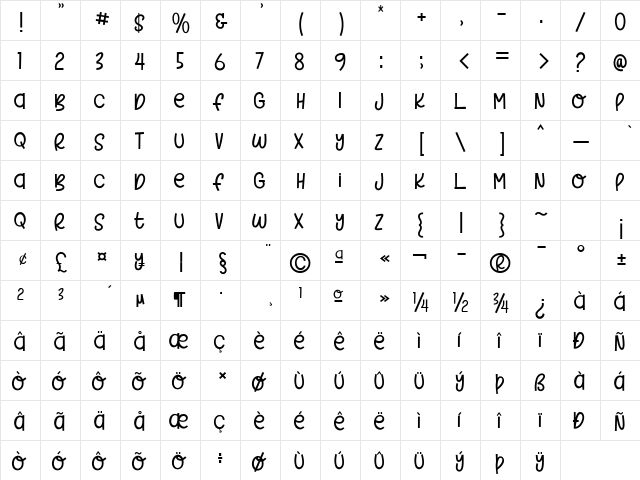
Matcha Smoothies Regular
Design Context for Matcha Smoothies Typeface
Matcha Smoothies is a composed and adaptable typeface that performs quietly and consistently across a wide range of design contexts.